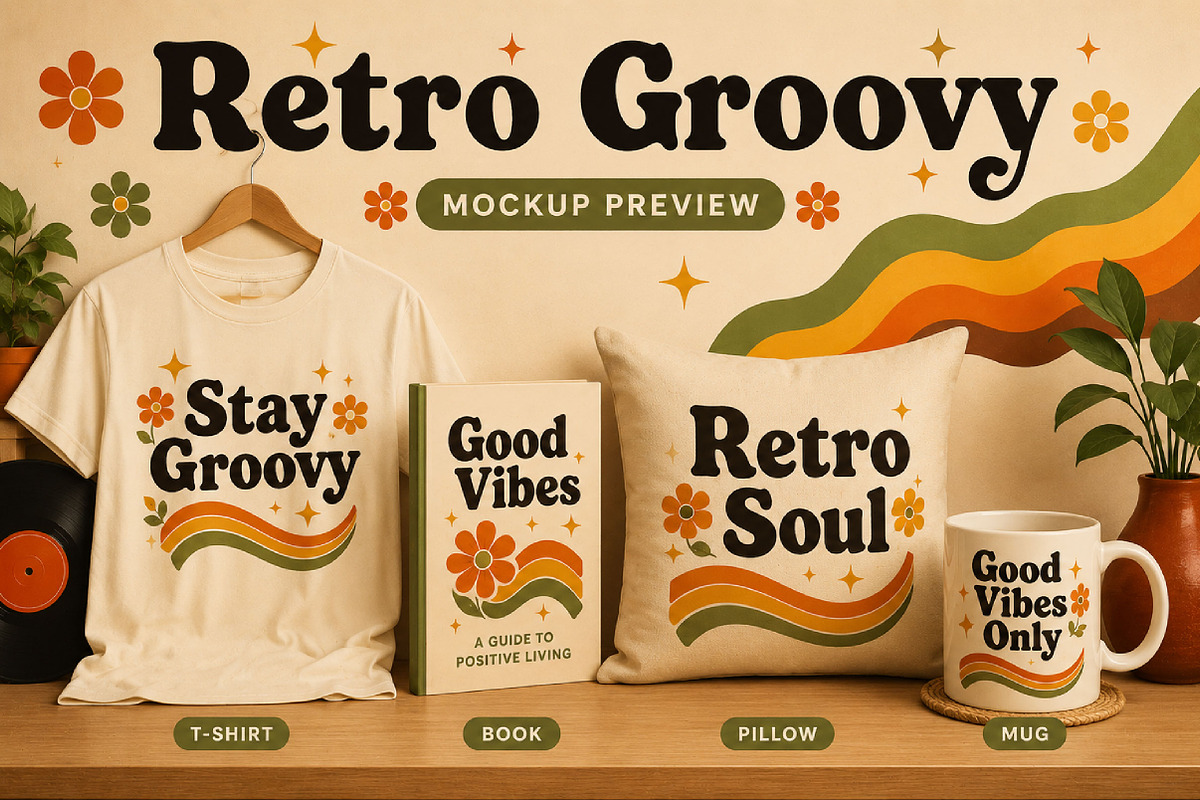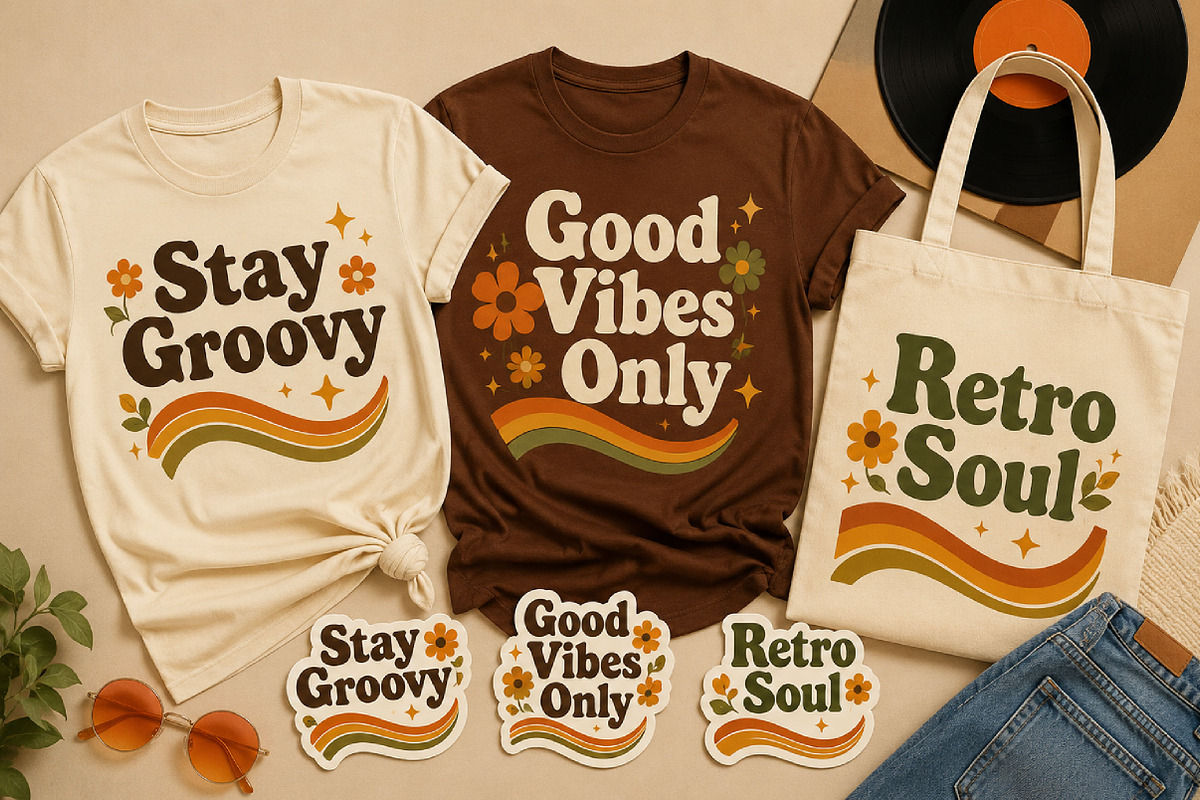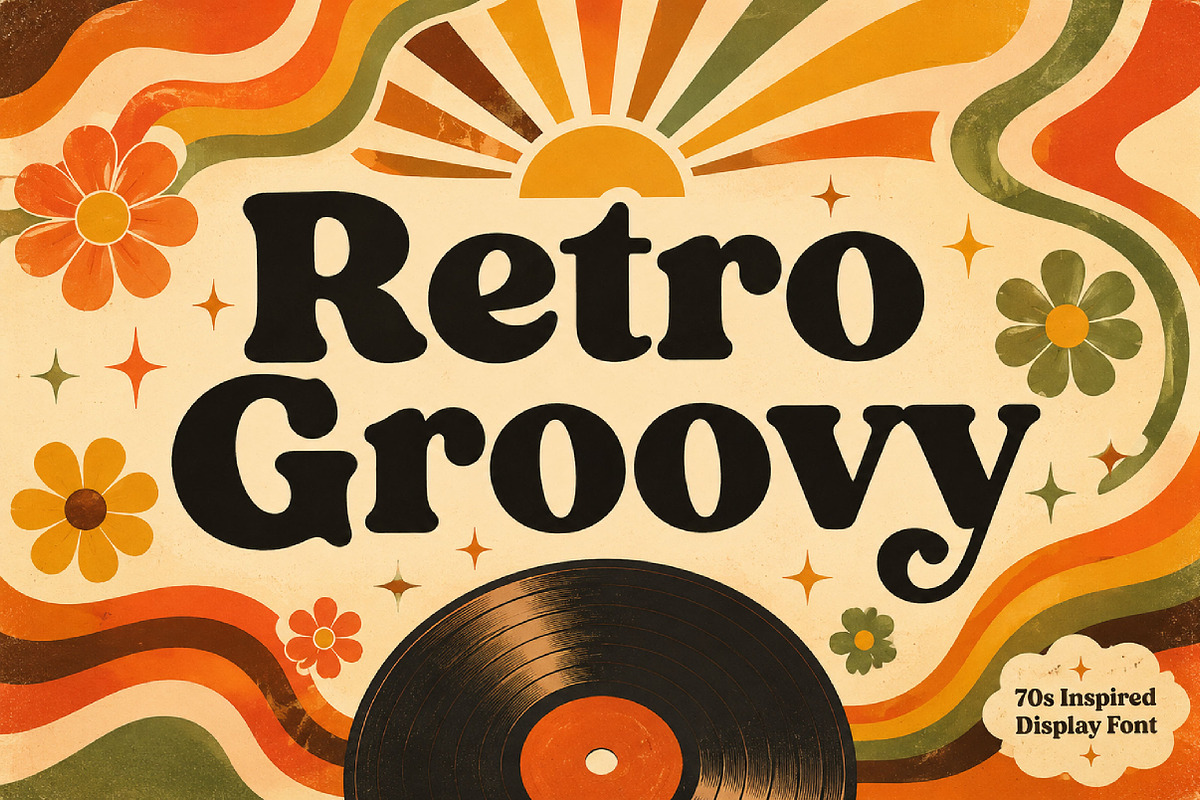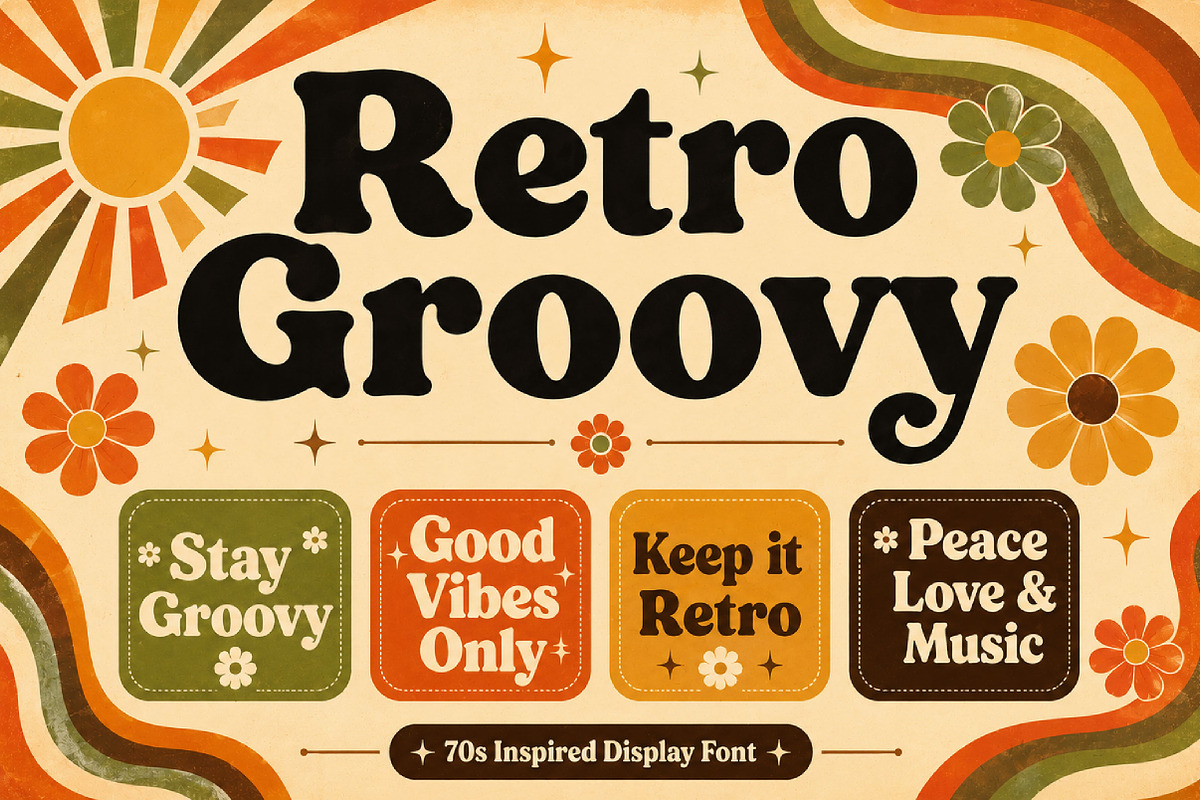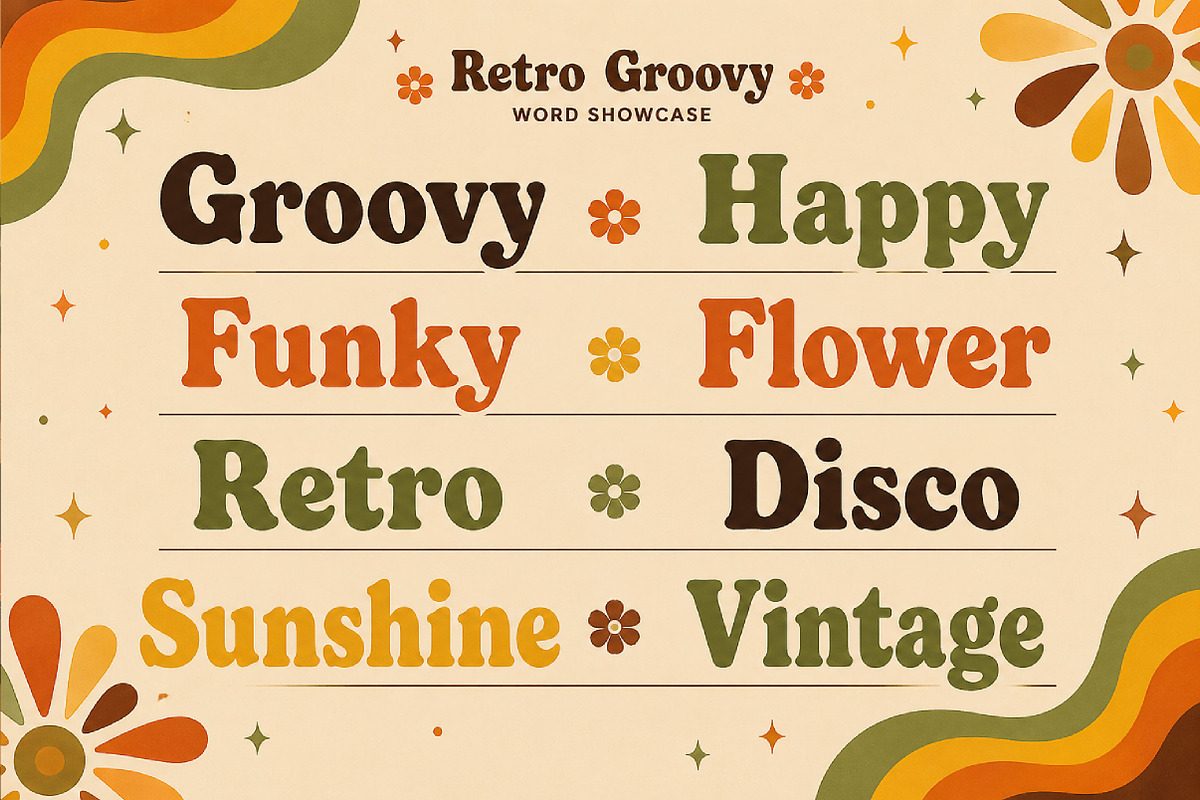
Retro Groovy
Retro Groovy – Vintage Bold Display Font
Retro Groovy is a bold vintage display font with a smooth groovy style, perfect for logos, posters, branding, packaging, apparel, and retro-themed creative projects.
Retro Groovy is a stylish vintage display font inspired by classic groovy typography from the retro era. Featuring bold curves, soft edges, and funky letterforms, this font delivers a nostalgic and eye-catching personality that instantly brings vintage vibes to your designs.
Its retro aesthetic makes Retro Groovy perfect for posters, logos, branding, album covers, packaging, apparel, social media graphics, and 70s-inspired creative projects. The bold structure and flowing curves create a fun yet elegant look that feels expressive, warm, and timeless.
Whether you’re creating retro branding, vintage merchandise, trendy headlines, or nostalgic artwork, Retro Groovy adds a bold and playful character that stands out beautifully in both print and digital designs.
Retro and vintage designs
Posters and headlines
Logos and branding
Apparel and merchandise
Packaging designs
Album and music covers
Stickers and labels
Funky creative projects
70s-inspired themes
Bold retro style
Groovy vintage appearance
Smooth curved letterforms
Funky display design
Perfect for display use